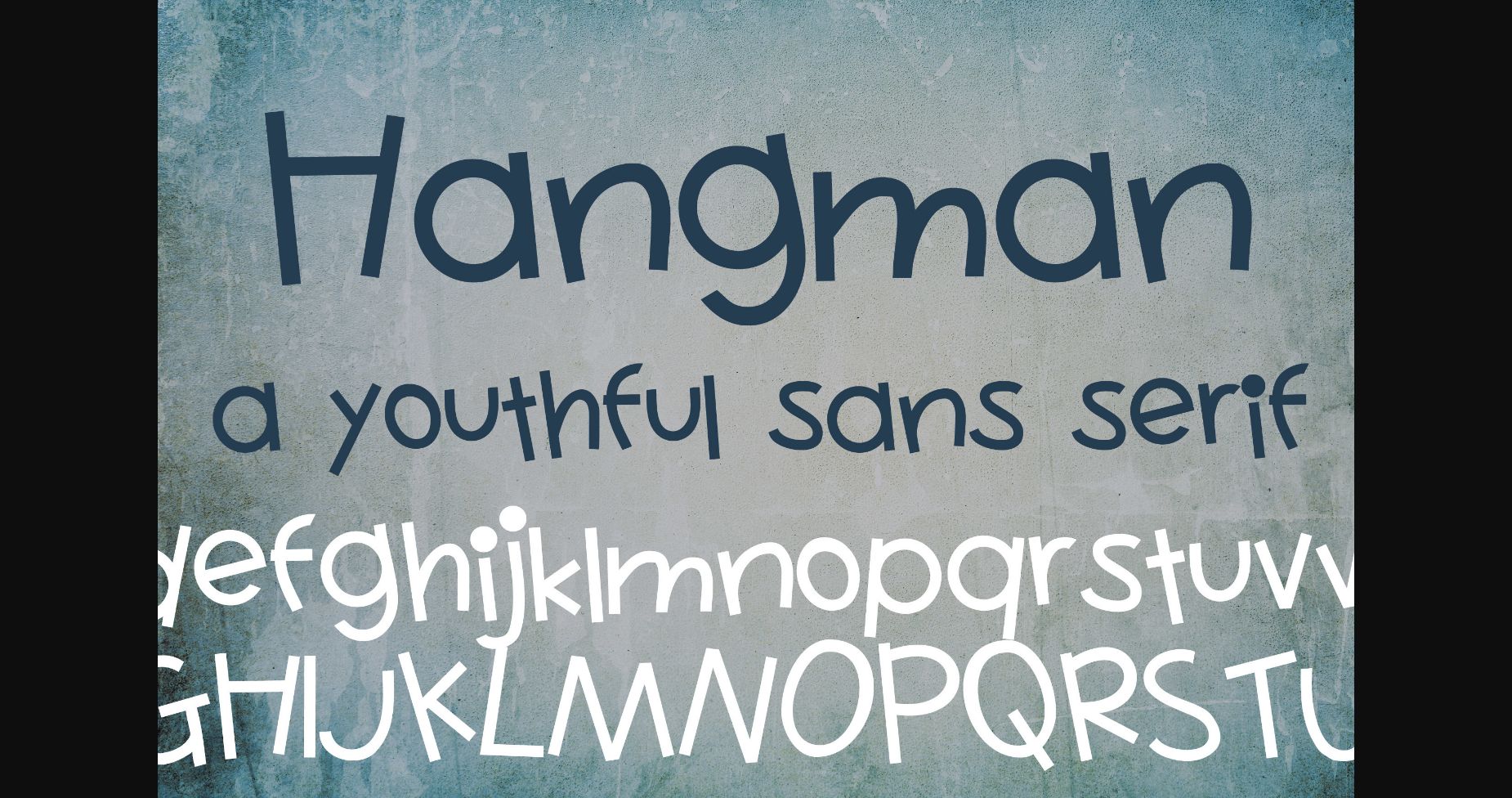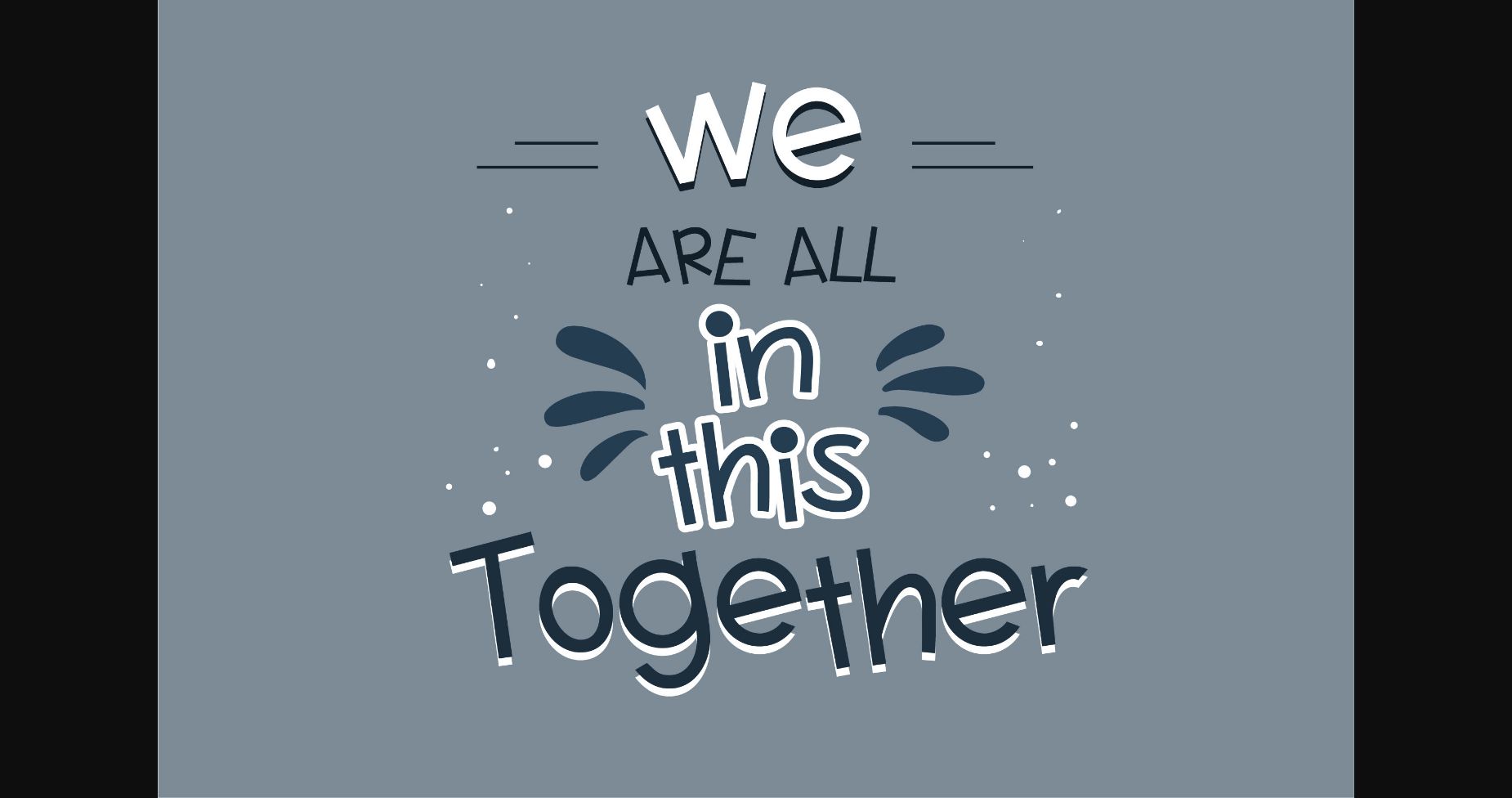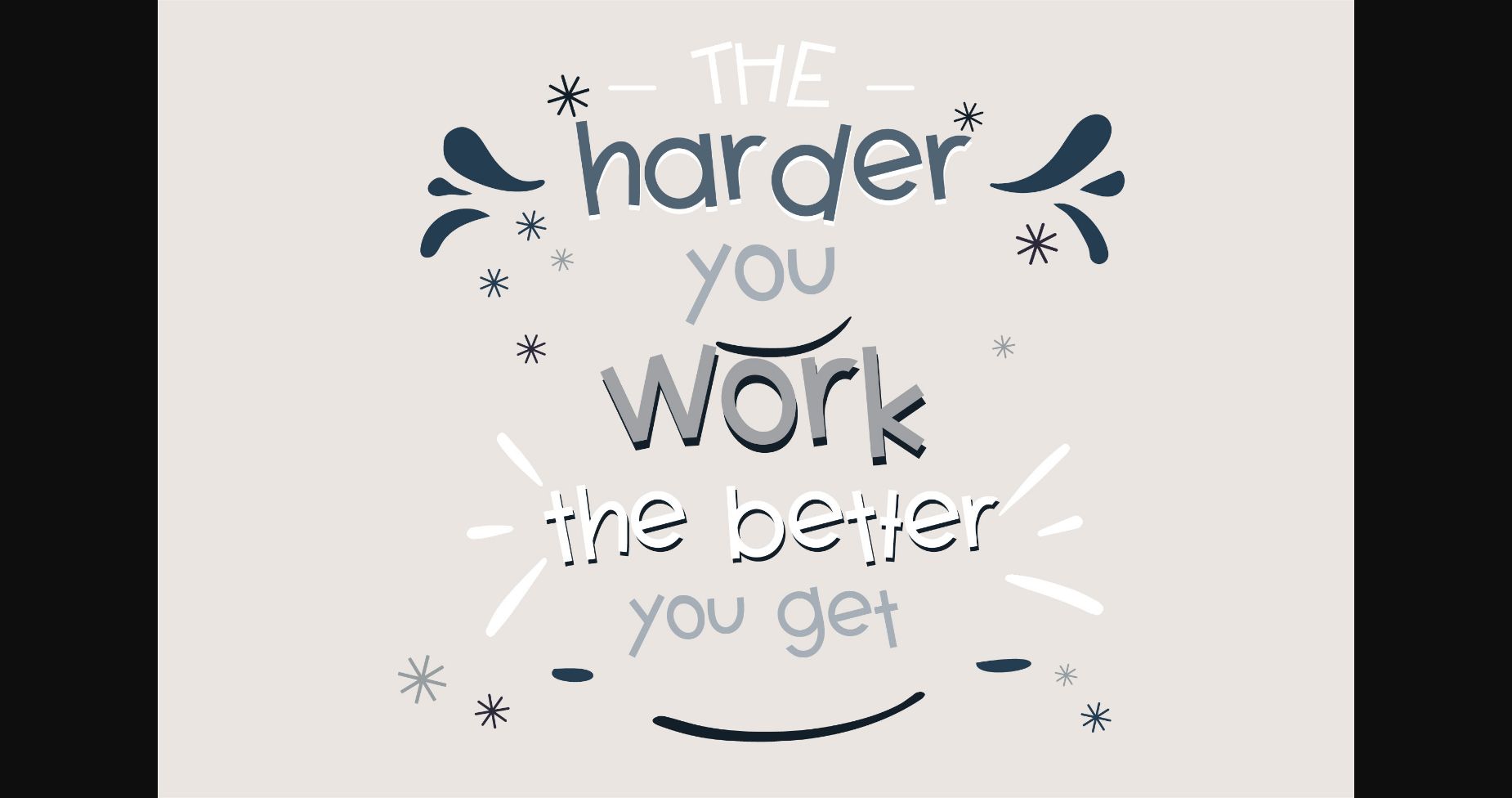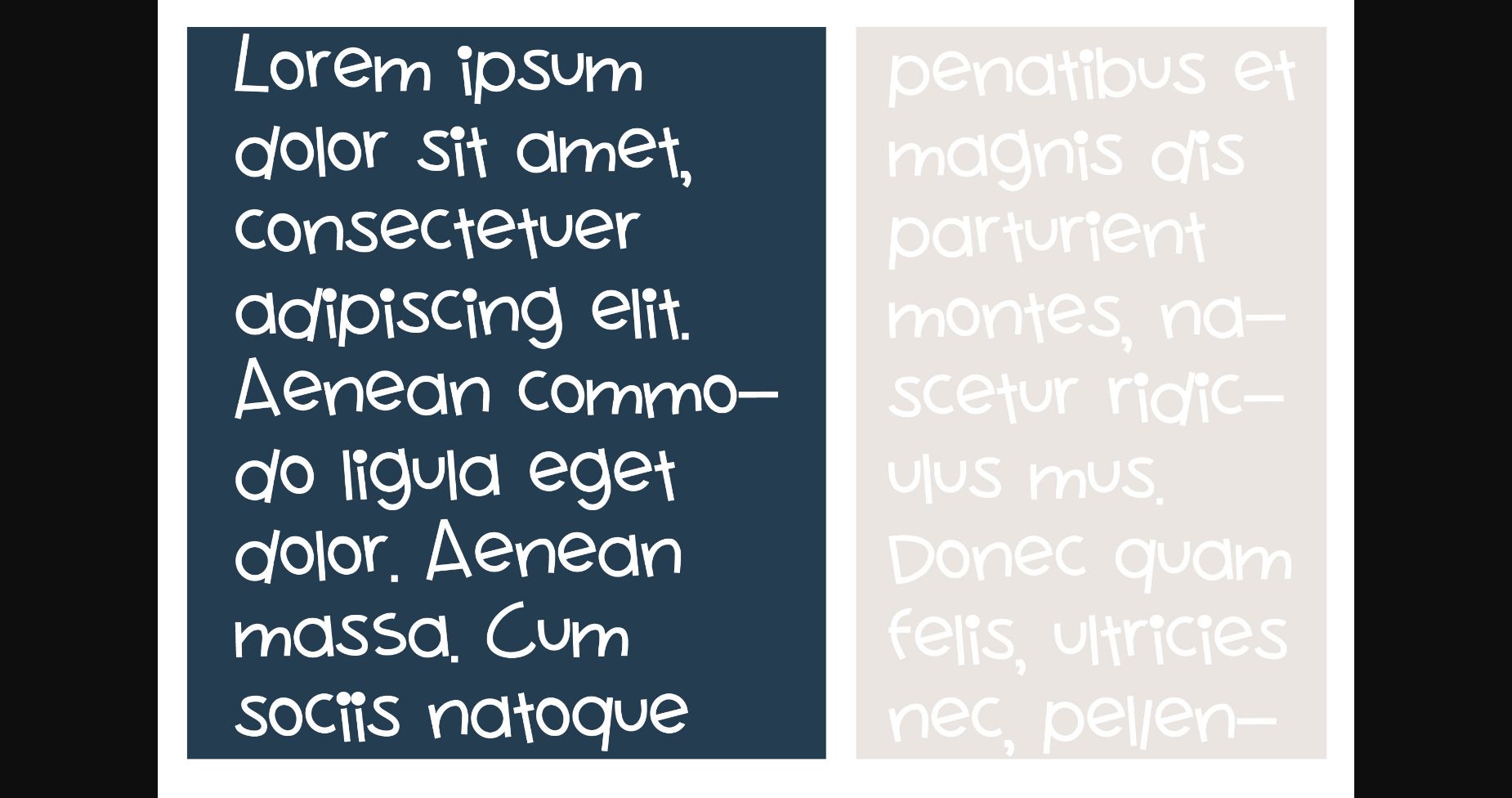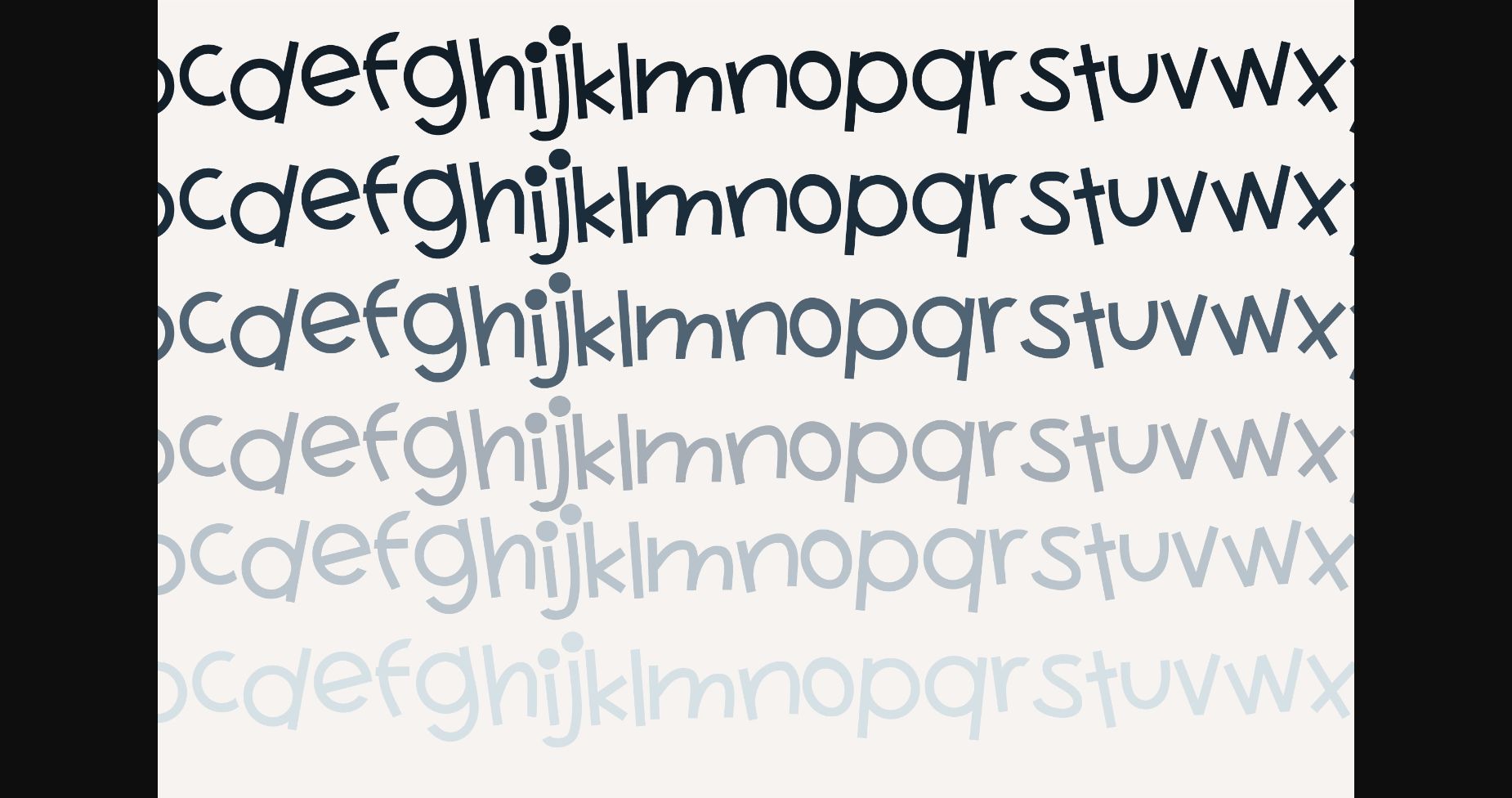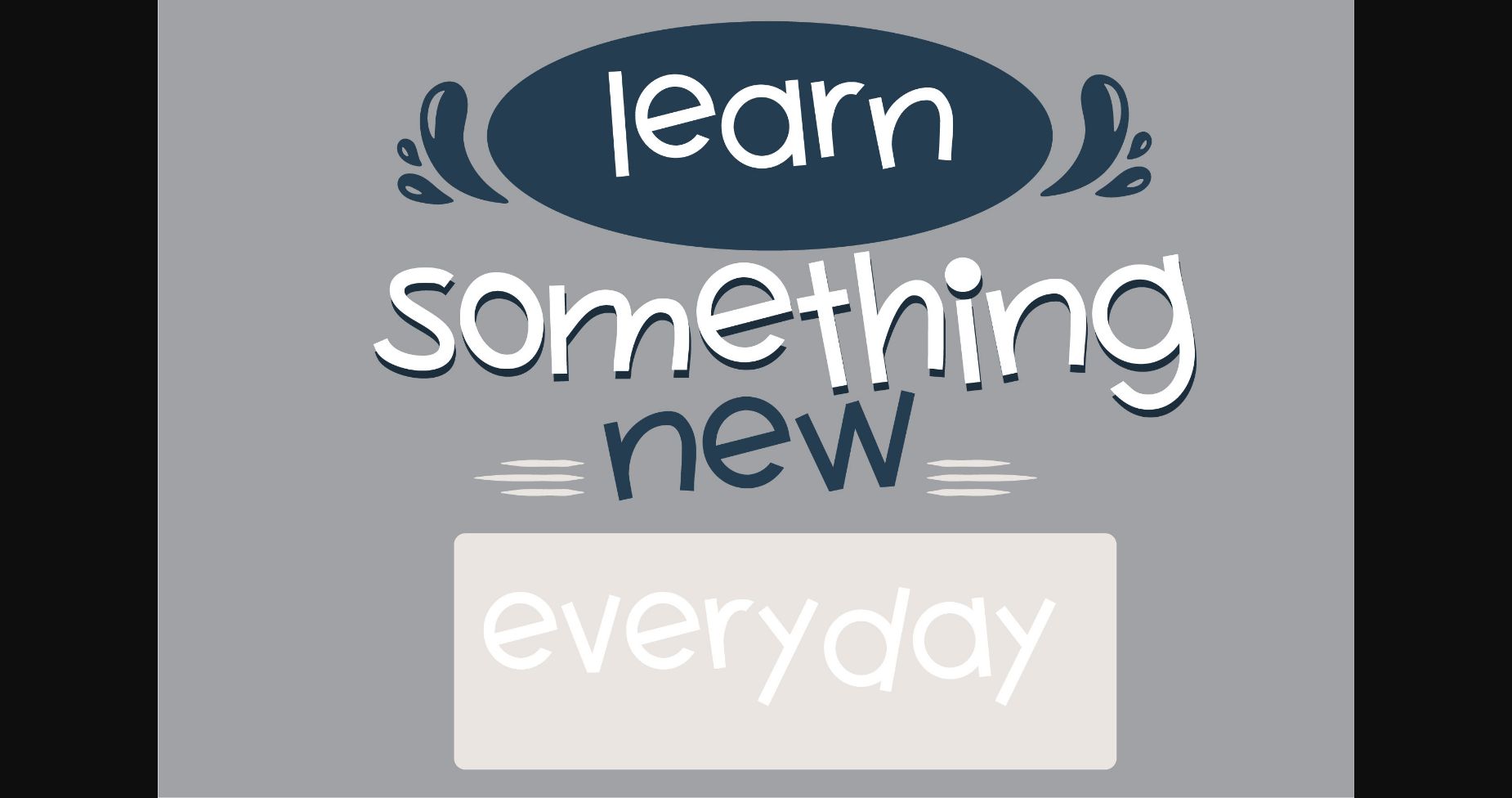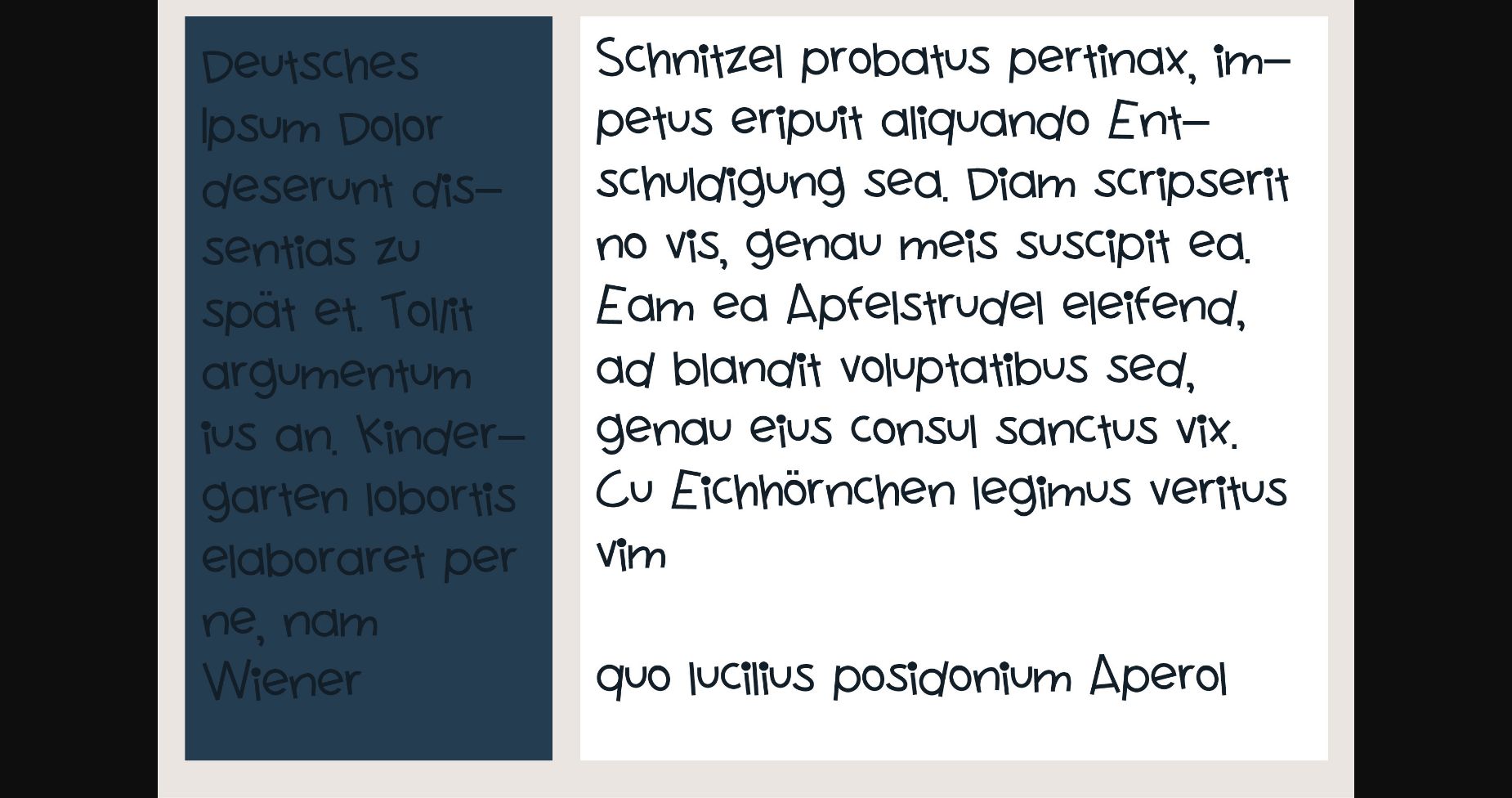
HomeSans Serif FontsPN Hangman Font Sans Serif Fonts PN Hangman Font FacebookTwitterPinterestWhatsApp 1 of 9 ... PN Hangman Font Poster 2... PN Hangman Font Poster 3... PN Hangman Font Poster 4... PN Hangman Font Poster 5... PN Hangman Font Poster 6... PN Hangman Font Poster 7... PN Hangman Font Poster 8... PN Hangman Font Poster 9... About PN Hangman Font This hand-written sans serif font is youthful and whimsical with toggled lettering throughout. DOWNLOAD NOW 118 0 People also explored Deathblood Font Romoku Font Baby Sillentha Script Font American Football Font Shrifton Font South Louisville Font Big Mountain Font Turquoise Styled Unisex T-Shirt Mockup Photo Fancylate Font Amelya Font Testo Santoh Font Philostrate TagsPN Hangman Font Previous articlePN Harvest Moon FontNext articleZP Mayflower Font LEAVE A REPLY Cancel reply Comment: Please enter your comment! Name:* Please enter your name here Email:* You have entered an incorrect email address! Please enter your email address here Website: Save my name, email, and website in this browser for the next time I comment. Unlock Endless Creativity with the FREE September Clipart Huge Bundle (Valued at $700!) Personal Use Free Maharany Personal Use Free Read more Zero Hour Personal Use Free Read more The Winter Personal Use Free Read more Gupis Personal Use Free Read more BLOG Transform Your Website: Elevate Your Typography with 7 Best Web Font Generators Are you ready to transform your website's typography from ordinary to extraordinary? Great! Today, we're diving into the world of web font generators, which... Where to Buy American Fonts Online in 2024 The 10 Best Handwriting Fonts to Add Personality to Your Designs To increase your work productivity, choose the most readable fonts.